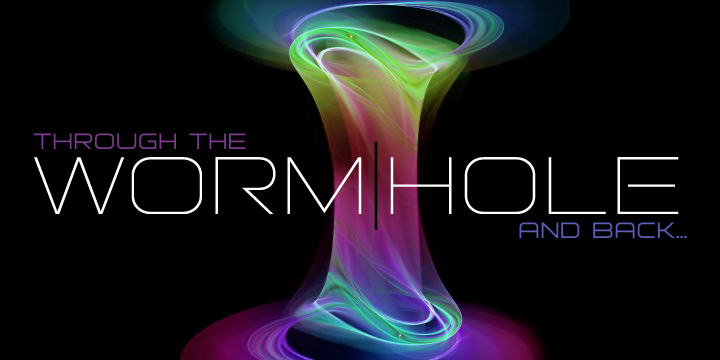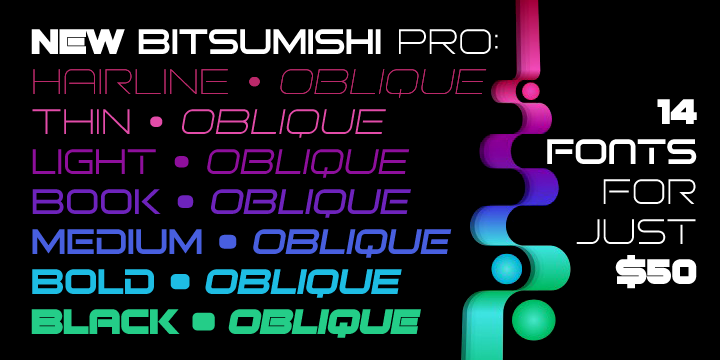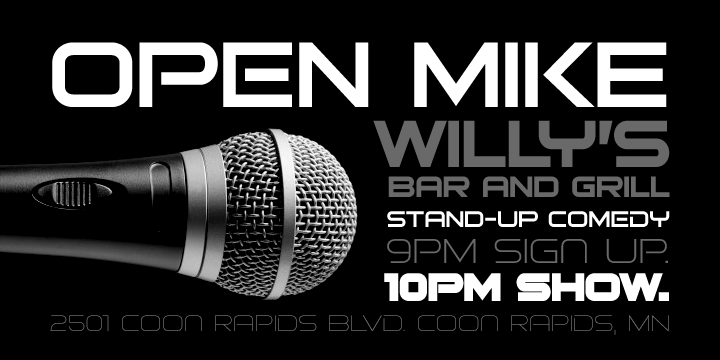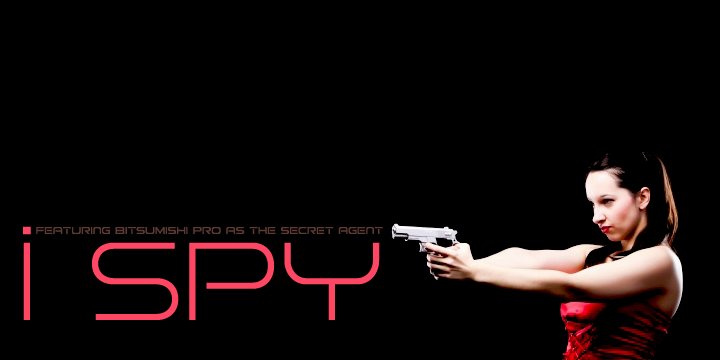
Bitsumishi Pro is a display sans font family. This typeface has fourteen styles and was published by CheapProFonts.
A squarish uppercase font perfect for logos and short eye-catching headings. The lowercase contains some alternate letterforms - more specifically: uppercase have closed forms (I made a new A D and R), and lowercase have some open alternatives (new B E F P and T in addition to the A D and R). I noticed the two width version of the H and made similar normal and wide versions of J and L. Then I added lots of missing glyphs and all the diacritic letters, of course - and finally the family has been expanded to 7 weights AND corresponding Italics! Enjoy!